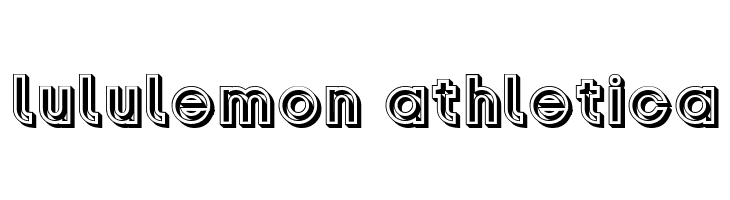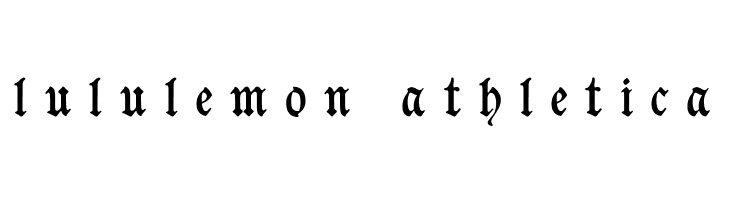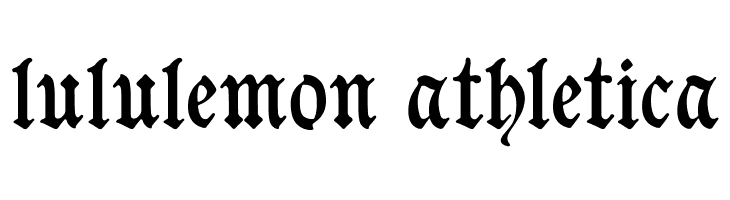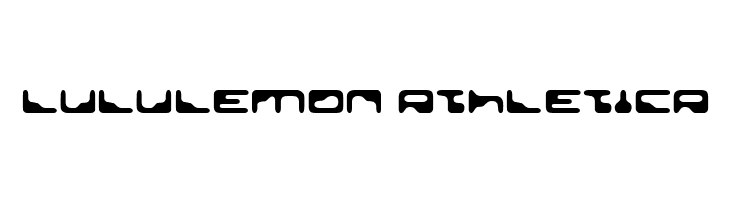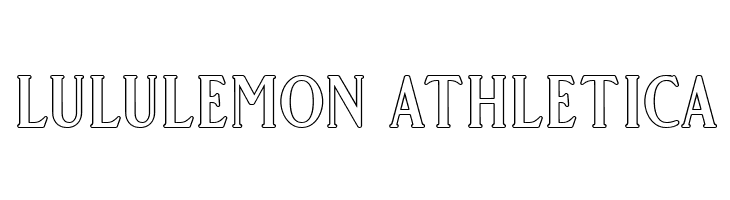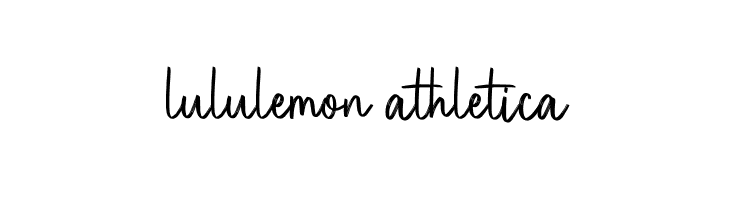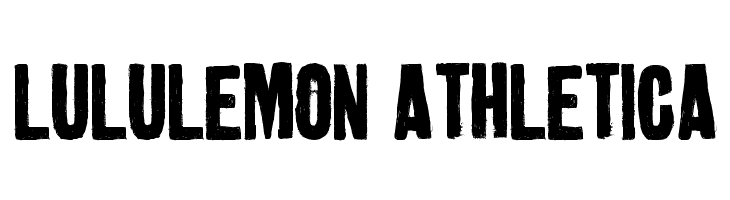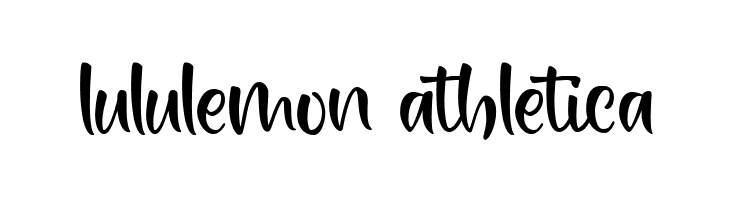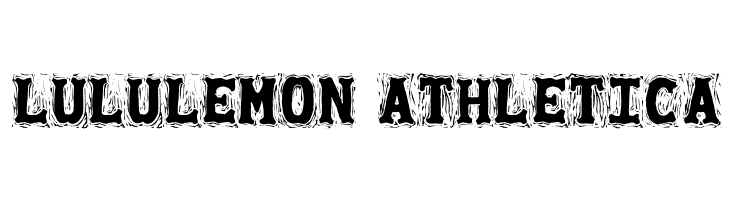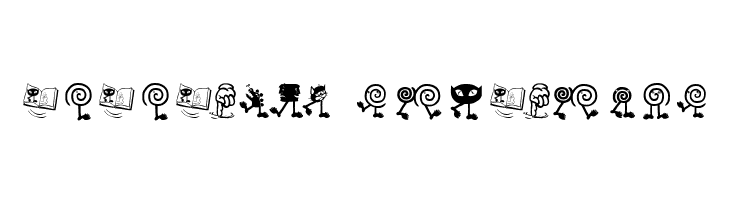
( Fonts by Manfred Klein. Free for private and charity use. Free for commercial with donation to organizations ) Illustrative font with mythological figures as characters. Descarcă 122 Descărcări@WebFont
( Fonts by www.peter-wiegel.de. Personal-use only. For commercial use please contact owner. ) An ornate Blackletter font with bold, angular strokes and decorative flourishes. Descarcă 705 Descărcări@WebFont
( Fonts by Peter Wiegel - www.peter-wiegel.de - Personal-use only. For commercial use please contact owner. ) A traditional Blackletter font with ornate and angular strokes, ideal for historic and formal designs. Descarcă 105 Descărcări@WebFont
( Fonts by Peter Wiegel - www.peter-wiegel.de ) A traditional blackletter font with ornate, medieval-style letterforms. Descarcă 360 Descărcări@WebFont
( Fonts by Peter Wiegel - www.peter-wiegel.de - Personal-use only. For commercial use please contact owner. ) A detailed Blackletter font with ornate, medieval-inspired design. Descarcă 42 Descărcări@WebFont
( Fonts by Peter Wiegel - www.peter-wiegel.de ) An ornate Blackletter font with intricate details and an italic style. Descarcă 357 Descărcări@WebFont
( Fonts by Peter Wiegel - www.peter-wiegel.de - Personal-use only. For commercial use please contact owner. ) A traditional blackletter font with ornate, angular letterforms and a medieval aesthetic. Descarcă 56 Descărcări@WebFont
( Fonts by Manfred Klein. Free for private and charity use. Free for commercial with donation to organizations ) A modern, geometric sans-serif font with uniform strokes and excellent readability. Descarcă 846 Descărcări@WebFont
( Fonts by Manfred Klein. Free for private and charity use. Free for commercial with donation to organizations ) A bold, modern typeface with clean lines and uniform strokes. Descarcă 1897 Descărcări@WebFont
( Fonts by Manfred Klein. Free for private and charity use. Free for commercial with donation to organizations ) A modern, oblique font with clean lines and a dynamic style. Descarcă 409 Descărcări@WebFont
( Fonts by Manfred Klein. Free for private and charity use. Free for commercial with donation to organizations ) Cartoonish dingbat font with quirky, walking characters. Descarcă 747 Descărcări@WebFont
( Fonts by Craft Supply Co - Personal-use only. For commercial use please contact owner. ) An elegant outline font with a modern and sophisticated style. Descarcă 40 Descărcări@WebFont
( Fonts by Craft Supply Co - Personal-use only. For commercial use please contact owner. ) A rough, textured font with a handcrafted, vintage feel. Descarcă 99 Descărcări@WebFont
( Fonts by Ward Zwart - wardzwart.blogspot.com - free for personal use only! ) A bold, distressed font with a vintage, handcrafted look. Descarcă 714 Descărcări@WebFont
( Eric Perlin ) A playful outline font with a bold, double-line effect. Descarcă 70 Descărcări@WebFont
( Valentin François - www.valentinfrancois.fr ) A clean, geometric font with a modern and balanced design. Descarcă 266 Descărcări@WebFont
( Fonts by Peter Wiegel - Personal-use only. For commercial use please contact owner. ) A bold, decorative script font with flowing, interconnected characters. Descarcă 66 Descărcări@WebFont
( Fonts by Peter Wiegel - www.peter-wiegel.de - Personal-use only. For commercial use please contact owner. ) A bold, expressive script font with flowing, cursive letterforms and ornate details. Descarcă 42 Descărcări@WebFont
( Fonts by Maulana Creative - Gilang Maulana - Personal-use only. For commercial use please contact owner. ) A playful, handwritten font with tall, narrow letterforms and a casual, modern style. Descarcă 102 Descărcări@WebFont
( Fonts by Vunira Design - Personal-use only. For commercial use please contact owner. ) A lively and expressive script font with bold, flowing letterforms. Descarcă 44 Descărcări@WebFont
( Fonts by Maulana Creative - Gilang Maulana - Personal-use only. For commercial use please contact owner. ) A playful, handwritten script font with bold, rounded strokes and a dynamic flow. Descarcă 41 Descărcări@WebFont
( Fonts by K-Type - Keith Bates - Personal-use only. For commercial use please contact owner. ) A bold, textured font with a distressed, grunge-like appearance. Descarcă 40 Descărcări@WebFont
( K-Type Freebies (Free for Personal Use Only) FROM http://www.k-type.com ) A bold, textured font with a distressed, vintage woodcut appearance. Descarcă 419 Descărcări@WebFont
( Fonts by Peter Wiegel - www.peter-wiegel.de - Personal-use only. For commercial use please contact owner. ) A bold, decorative font with a three-dimensional layered effect. Descarcă 85 Descărcări@WebFont
( Fonts by www.peter-wiegel.de. Personal-use only. For commercial use please contact owner. ) A bold, three-dimensional font with geometric precision and strong outlines. Descarcă 1574 Descărcări@WebFont
( Fonts by Nick Curtis - www.nicksfonts.com ) A decorative font with a cross-stitch pattern, evoking a handcrafted feel. Descarcă 379 Descărcări@WebFont
( Fonts by Nick Curtis - Personal-use only. For commercial use please contact owner. ) A decorative font with a cross-stitch embroidery style. Descarcă 62 Descărcări@WebFont
( Ingga Nafasyah - telllu.com ) A smooth, flowing script font with elegant, connected characters. Descarcă 355 Descărcări@WebFont